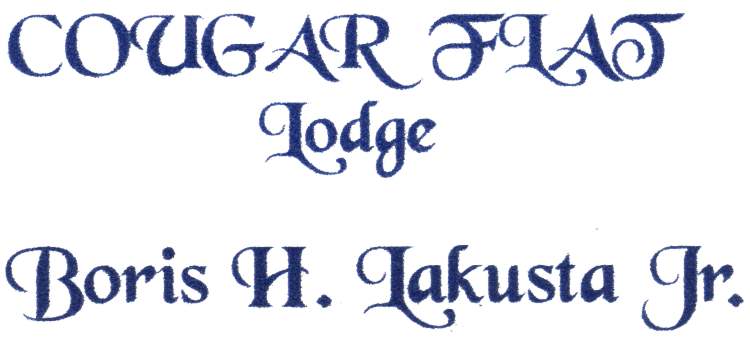
I have never seen this particular typeface and it would appear that neither has anyone else that I've queried. It's a hideous thing and the image is from someone's homemade business card. I would hope that the thing is for free somewhere, I can't imagine anyone actually paying for it.
It's things like this that make me rue the day that PC's created the illusion that anyone with a pulse is a competent typesetter. Worse, it would appear that the being that created this monstrosity actually likes it.
Anyway, I'd be forever in someone's debt if they could hang a label on this type face.